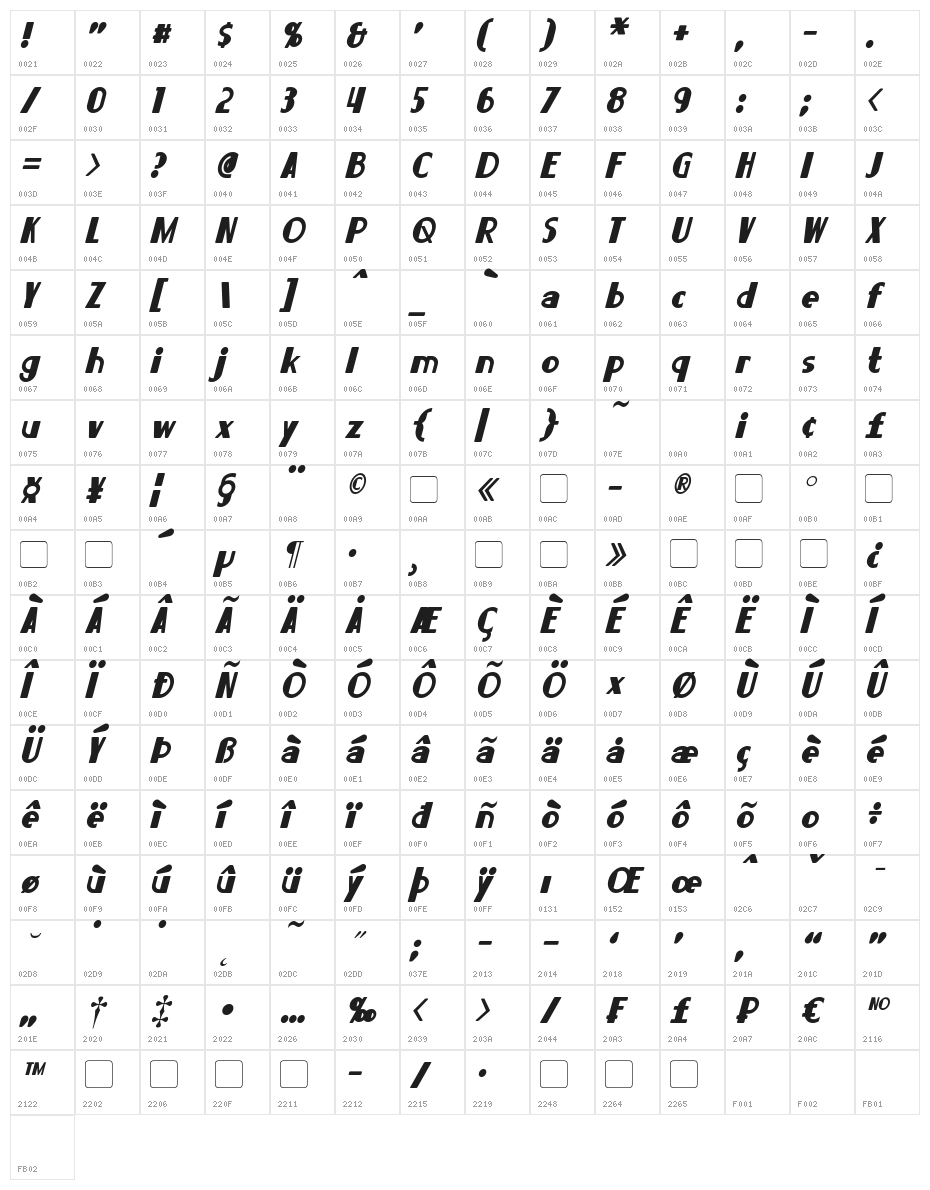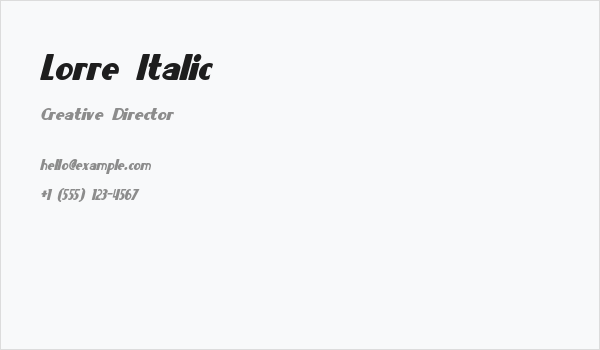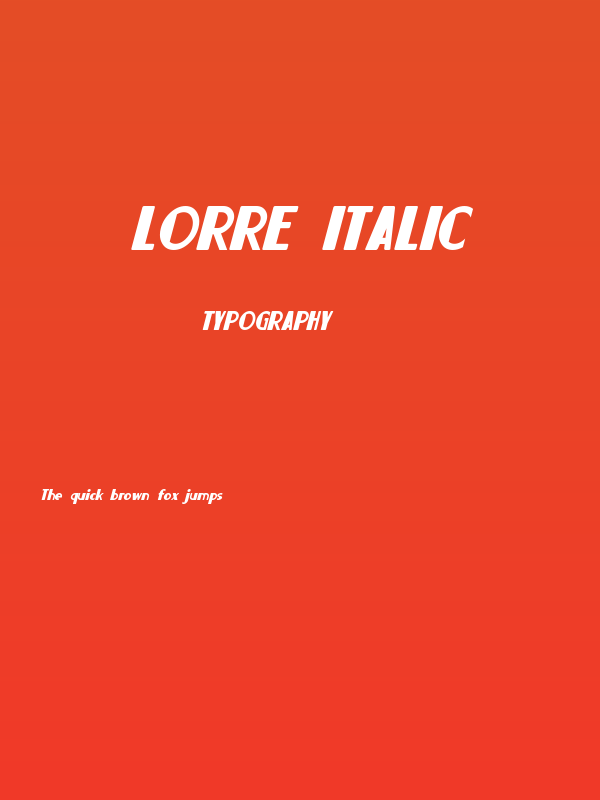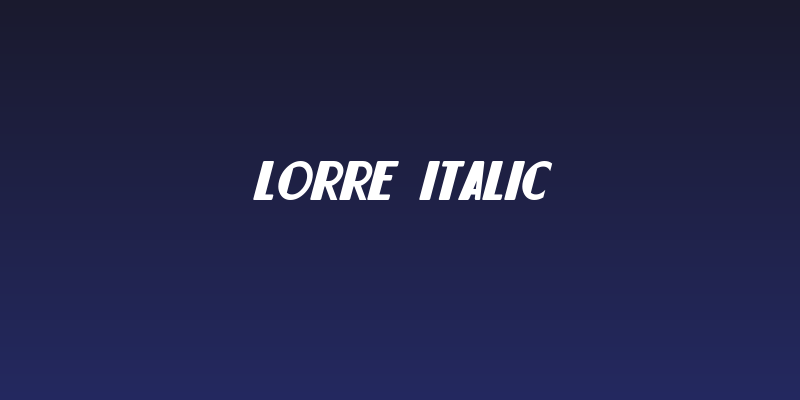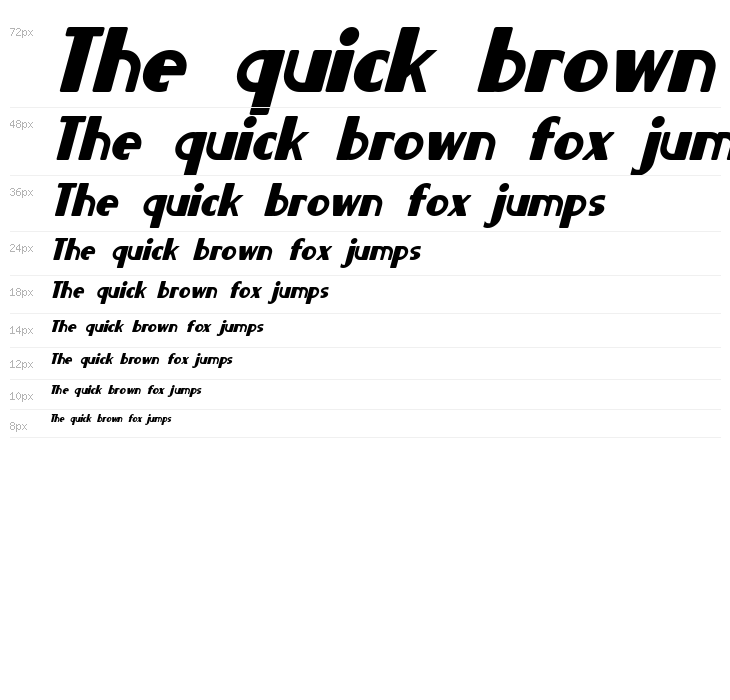
Lorre Italic Font
Lorre Italic Description
This font features a dynamic and bold italic style, characterized by its strong forward slant and thick strokes. The uppercase letters are robust and commanding, while the lowercase letters maintain a consistent flow with rounded edges. The numerals are equally bold, ensuring visibility and impact. Special characters are crafted with the same attention to detail, making them stand out. The overall design is modern and assertive, suitable for making a statement in any design project.
| Proposed Projects | Ideal for branding, headlines, posters, and any project requiring a bold, modern look. |